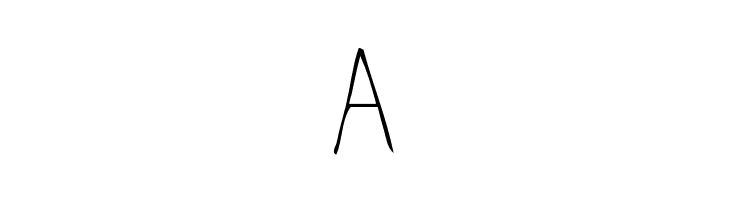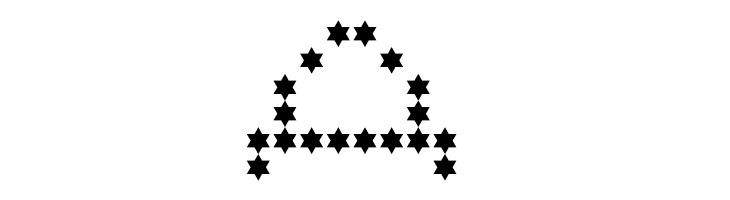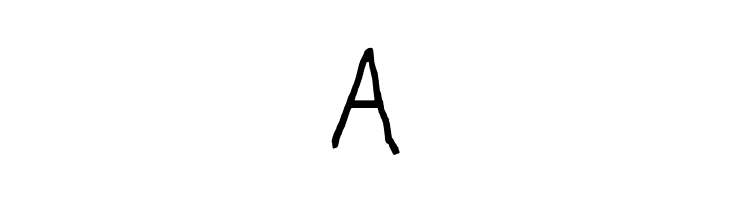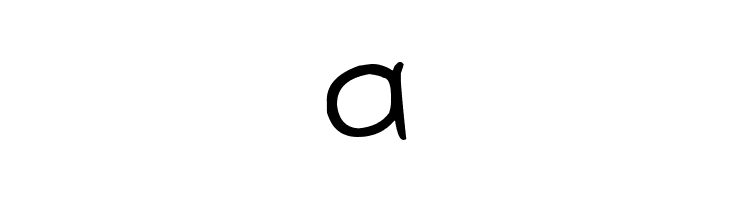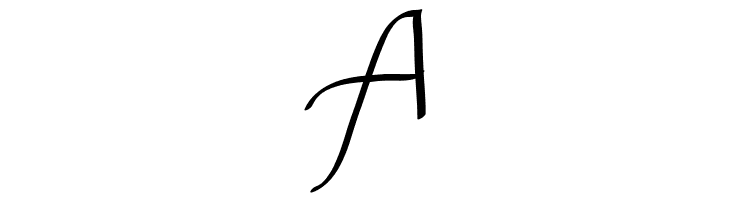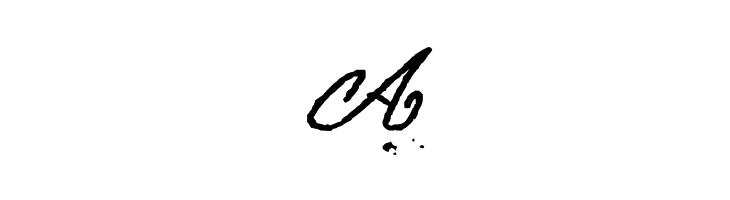
A sleek, extra-light, italic sans-serif font with a modern and elegant style.
A sleek, modern hairline italic font with elegant and fluid characteristics.
A modern, italicized sans-serif font with clean lines and excellent readability.
A modern, light sans-serif font with clean lines and excellent readability.
A sleek, modern, light italic font with smooth curves and balanced spacing.
A modern sans-serif font with balanced proportions and excellent readability.
A modern, slightly italic typeface with clean lines and moderate contrast.
A modern, clean sans-serif font with a friendly and versatile design.
A modern, semi-bold sans-serif font with excellent legibility and a friendly appearance.
A modern, italic sans-serif font with balanced weight and clear legibility.
A modern, thin sans-serif font with clean lines and high legibility.
A sleek, thin, and italicized font with a modern and elegant design.
A sleek, minimalist font with thin, uniform strokes and a modern aesthetic.
A sleek, modern hairline italic font with a clean and elegant design.
A modern, light, and italic sans-serif font with elegant slanted characters.
A playful, handwritten font with a casual and friendly appearance.
A bold, futuristic font with geometric and modern design elements.
A futuristic, geometric font with bold shapes and cut-out elements.
A bold, playful font with rounded characters and a dynamic tilt.
A dot matrix font with a retro digital aesthetic.
A futuristic, angular font with a bold, sci-fi aesthetic.
A bold, geometric font with a futuristic, digital aesthetic.
A bold, geometric font with a futuristic and modern aesthetic.